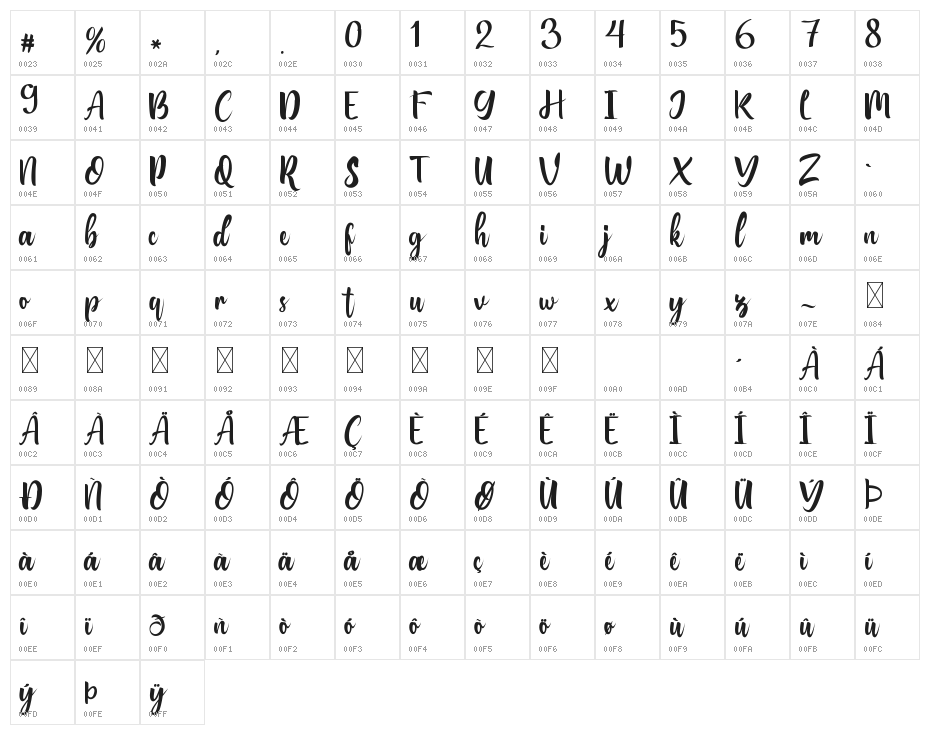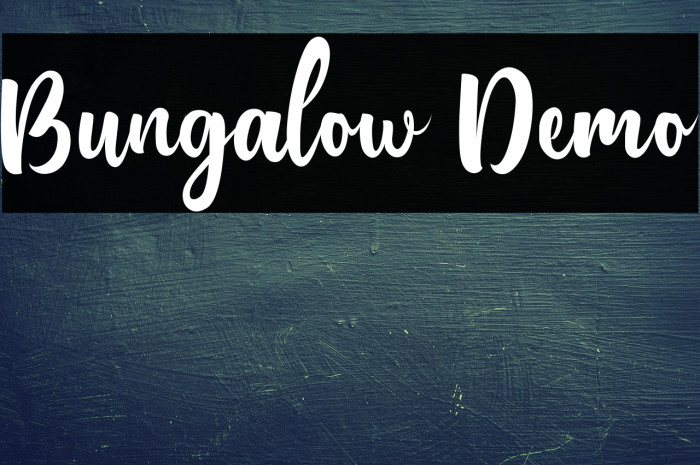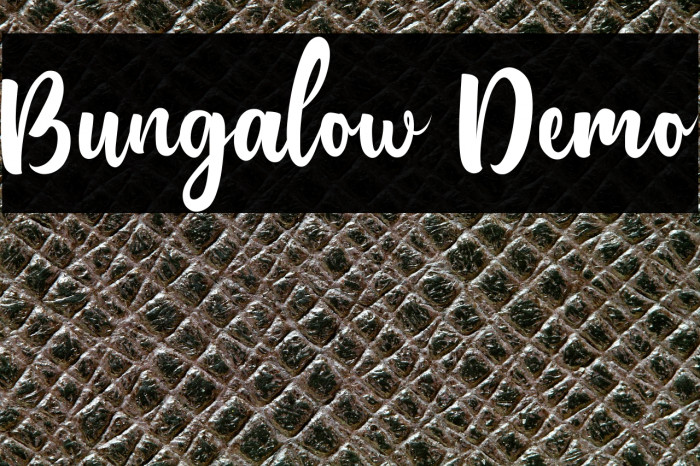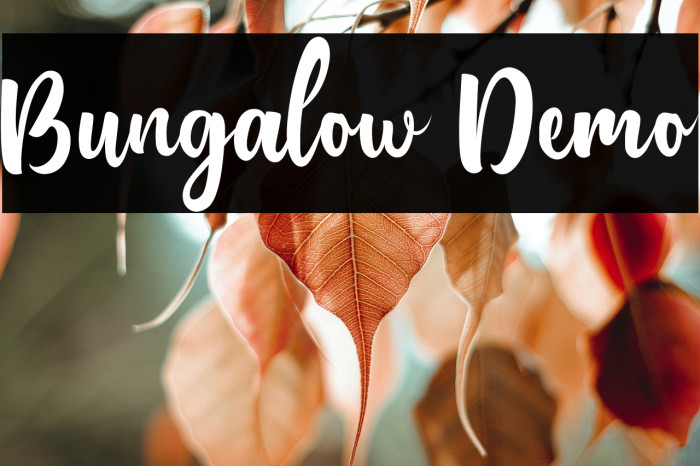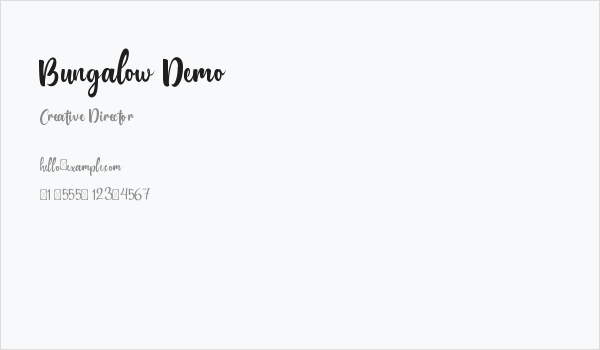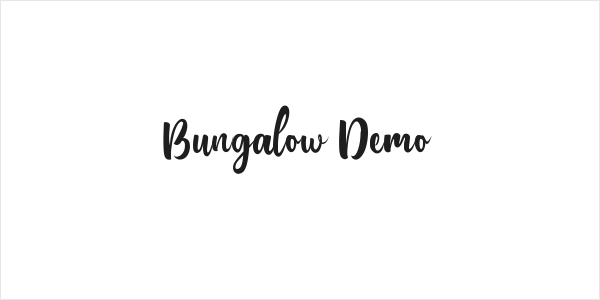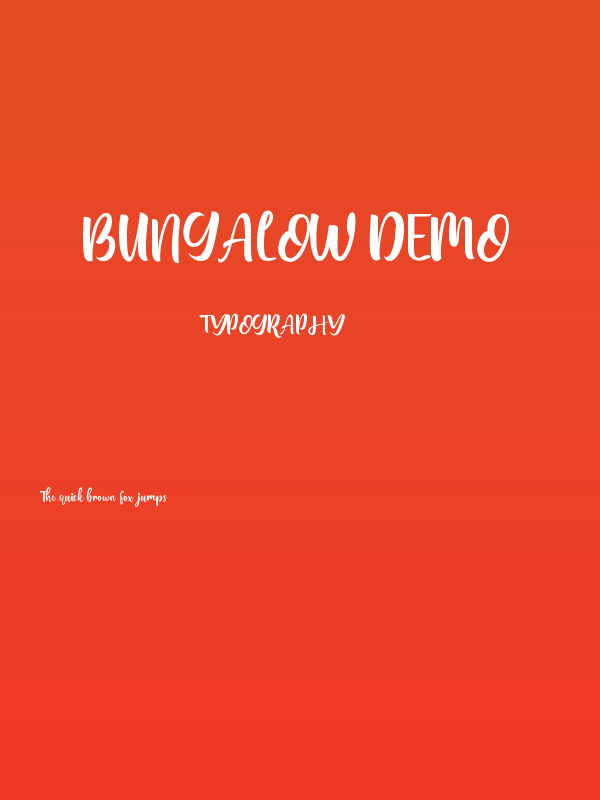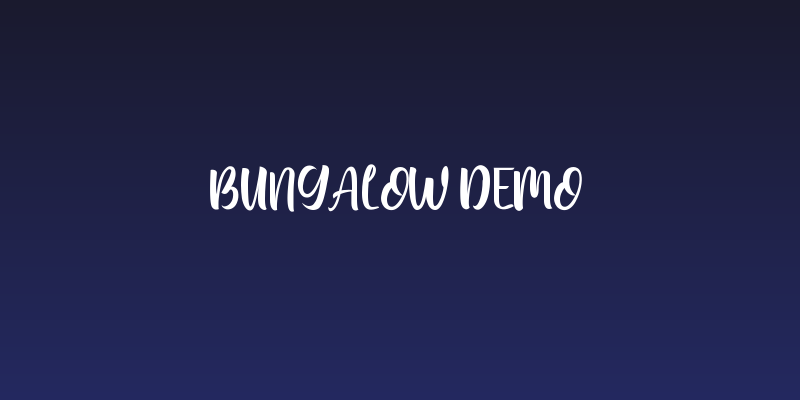
Bungalow Demo Font
Bungalow Demo Description
This font features a bold and expressive script style with a handwritten feel. The characters are fluid and dynamic, with a playful yet elegant appearance. The uppercase letters are bold and slightly condensed, while the lowercase letters maintain a consistent flow with a touch of flair. The numerals are well-balanced, matching the overall aesthetic of the font. Special characters are designed to complement the script style, adding versatility to its use. The font's overall look is both modern and artistic, making it suitable for creative and eye-catching designs.
| Proposed Projects | Ideal for branding, invitations, greeting cards, and social media graphics. |